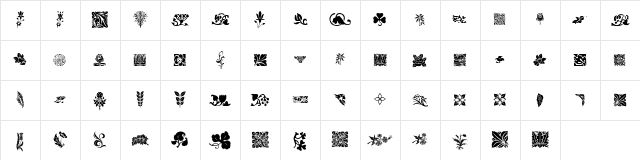
Rough Flowers Regular Free Font
Rough Flowers Regular
Foundry: Paulo W
Design Context for Rough Flowers
Rough Flowers embraces imperfection - its rough, textured character adds raw authenticity to designs that want to feel lived-in and unconventional.
Pro Tip: Use Rough Flowers at larger sizes where the texture and irregularity of each letterform can be clearly seen - it loses its character at small sizes.